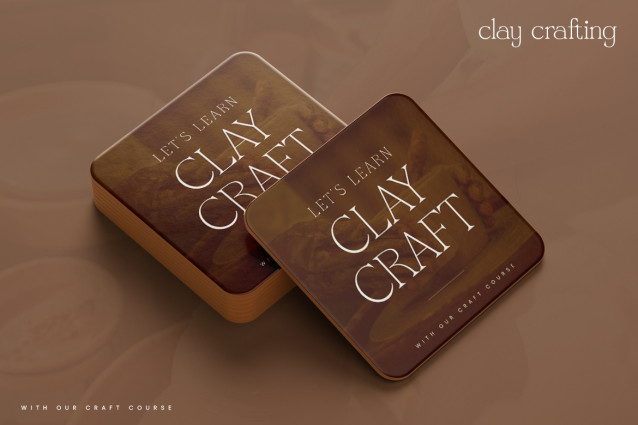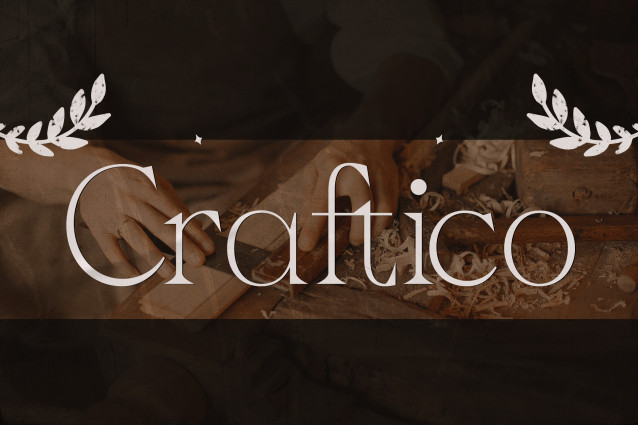
Craftico Font
Craftico Font, an elegant serif font that will bring a touch of luxury and grace to all your design projects. With its sleek lines, delicate serifs, and the graceful contrast between thick and thin strokes, Craftico Font is designed to exude a sophisticated aura and a timeless yet modern classic beauty.
Craftico is the ideal choice for designers seeking typography that is not only beautiful but also possesses enduring appeal. This font is perfectly suited for:
– Premium Logo Design: Create a luxurious and classy brand identity for high-end products or exclusive services.
– Wedding Invitations & Formal Events: Impart an elegant and unforgettable impression on every detail.
– Fashion & Beauty Branding: Perfect for brands that wish to highlight subtlety and style.
– Publishing & Editorial: Enhance readability and visual appeal in magazines, books, or websites.
– Luxury Product Packaging: Ensure your product makes a captivating appearance on the shelf.
– Display & Web Design: Add a professional and elegant touch to headers or other important elements.